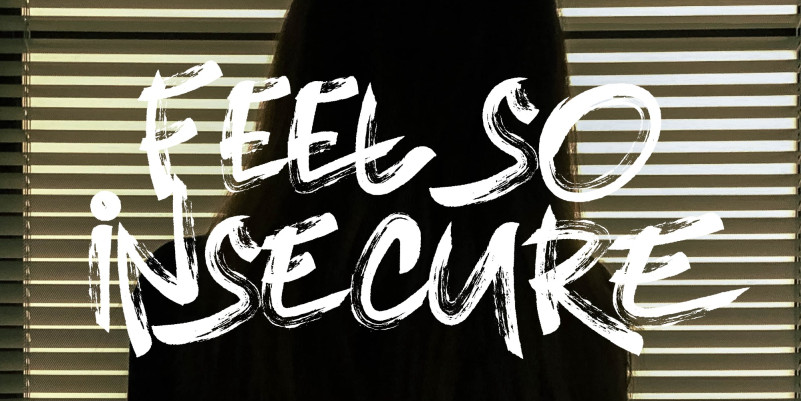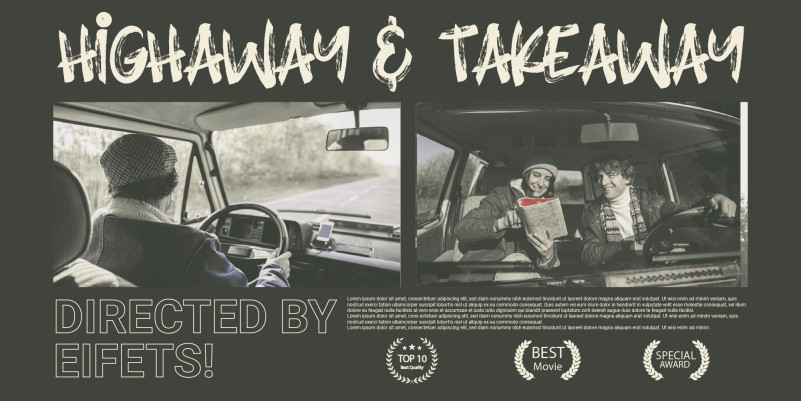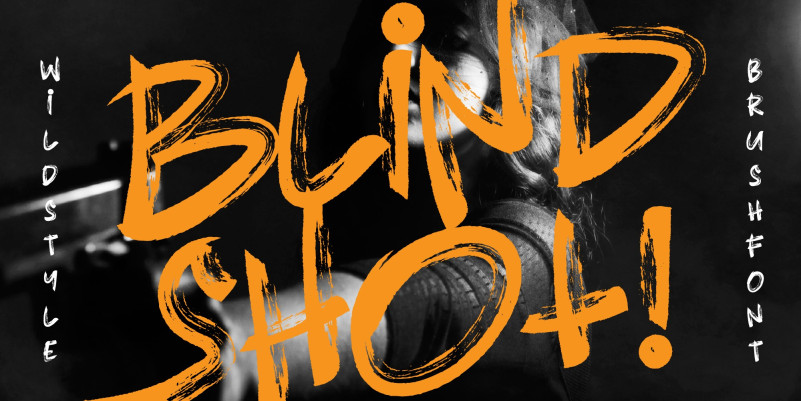
Blind Shot Font
Blind Shot Font is a Textured Brush Font . Easy readability,strong. good for your product,company profile,brand and etc. Wishing you the best, and have a nice day.